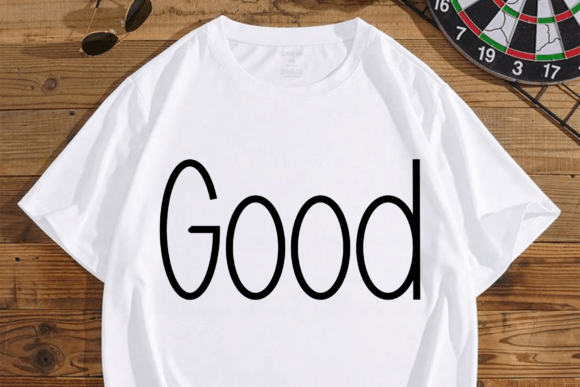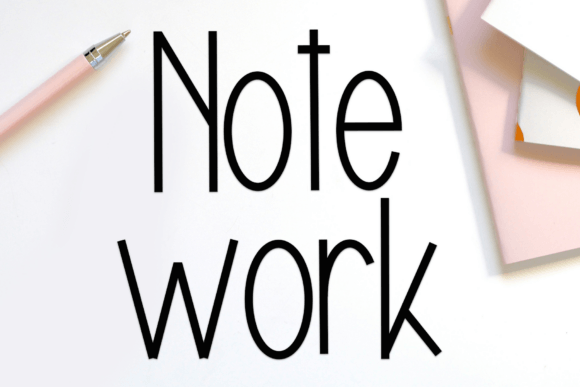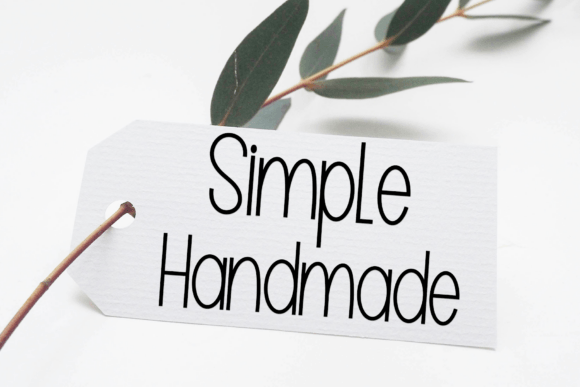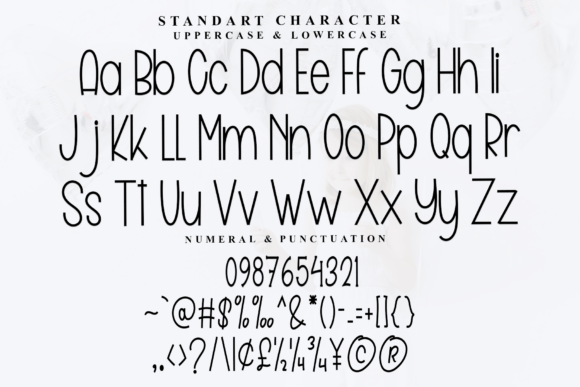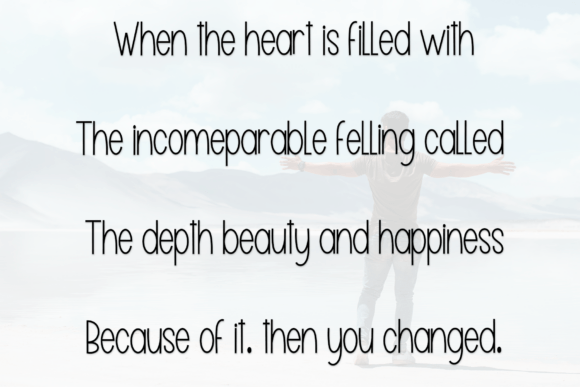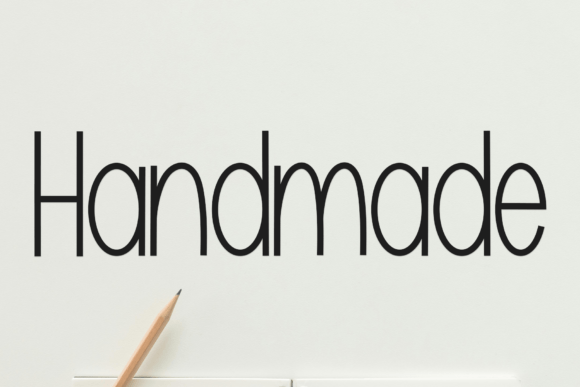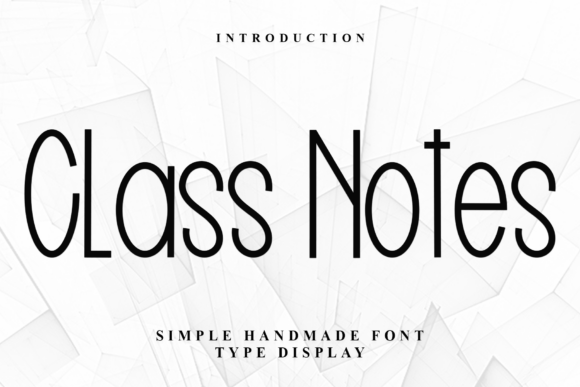
Introducing Class Notes Font: The Perfect Blend of Casual and Creative
Are you tired of using the same old fonts for your personal projects, invitations, and social media graphics? Look no further than Class Notes Font, a casual and creative font that exudes warmth and friendliness. Its unique, hand-drawn aesthetic is sure to add a fun and unique touch to any design.
The Characteristics of Class Notes Font
Class Notes Font is characterized by its round, playful strokes that create a relaxed and approachable feel. This font is perfect for designers and crafters who want to add a personal touch to their work. The font’s charming, hand-drawn aesthetic makes it ideal for a variety of projects, from personal invitations to social media graphics.
What Makes Class Notes Font Special?
The Benefits of Using Class Notes Font
So, why should you choose Class Notes Font for your next project? Here are just a few benefits of using this versatile font:
- Perfect for personal projects: Class Notes Font is ideal for personal projects, such as invitations, scrapbooking, and other crafty endeavors.
- Great for social media graphics: The font’s playful and creative aesthetic makes it perfect for social media graphics, such as Facebook posts, Instagram stories, and more.
- Unique and creative: Class Notes Font’s hand-drawn aesthetic adds a fun and unique touch to any design.
- Experiment with different styles: Class Notes Font comes with a range of glyphs and characters, so don’t be afraid to experiment with different styles and combinations.
Class Notes Font is a versatile and creative font that’s perfect for designers and crafters who want to add a personal touch to their work. With its unique, hand-drawn aesthetic and standard PUA Encoded glyphs, Class Notes Font is easy to use and works seamlessly with a variety of design software. Whether you’re working on a personal project, creating social media graphics, or just want to add a fun and unique touch to your designs, Class Notes Font is the perfect choice.
Key Features of Class Notes Font:
- Perfect for personal projects, invitations, and social media graphics
- Unique, hand-drawn aesthetic
- Casual and creative font